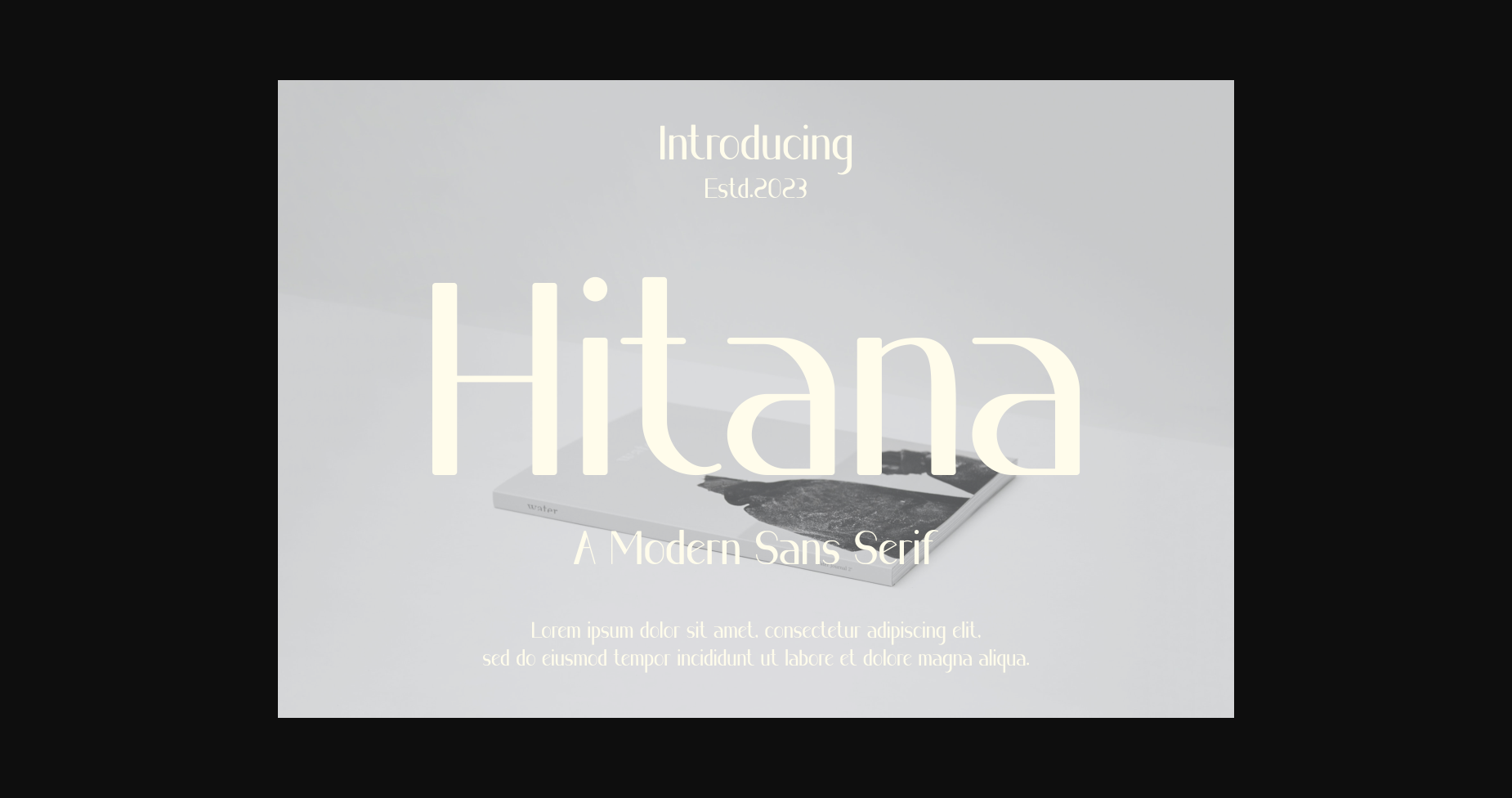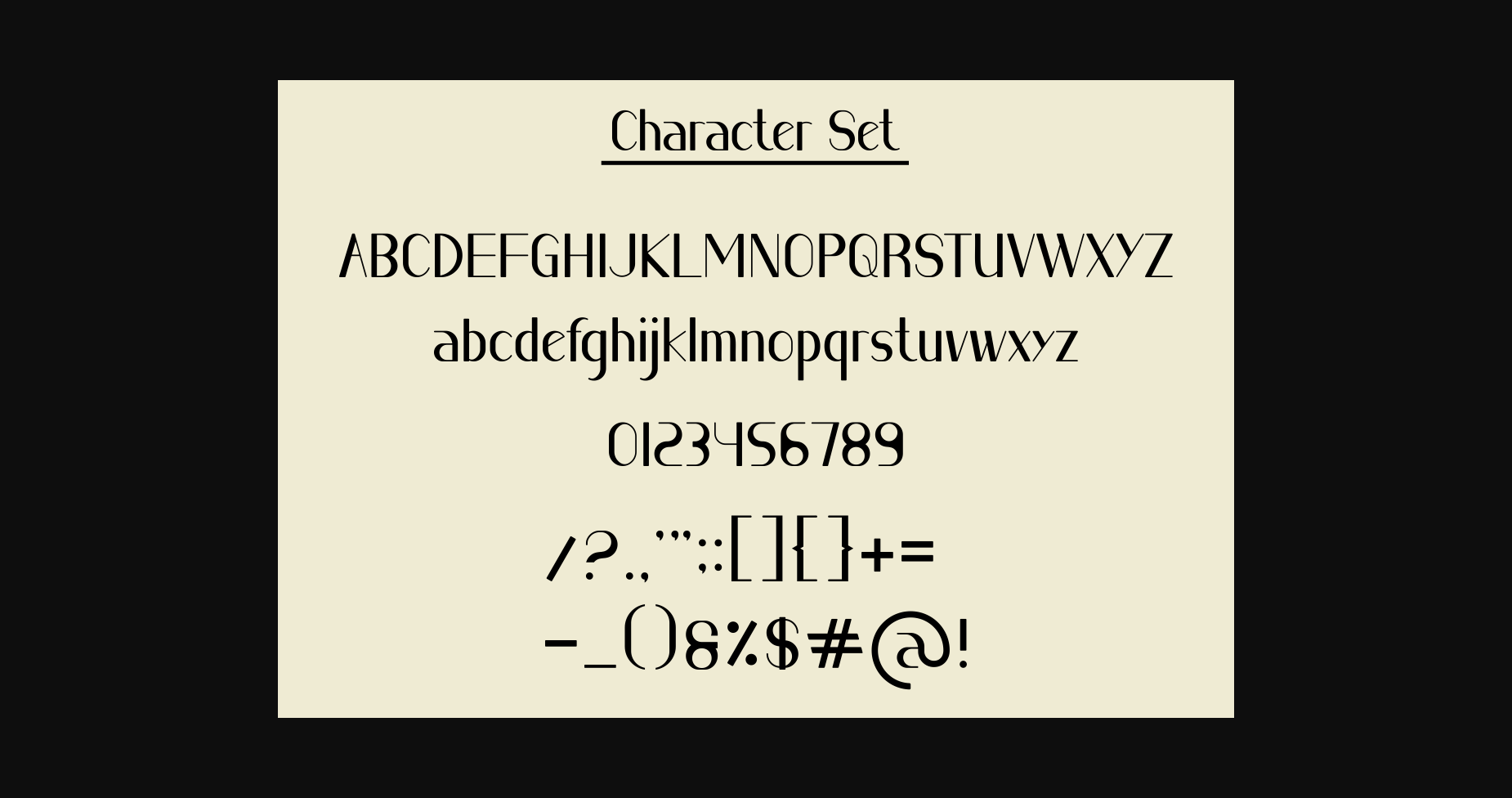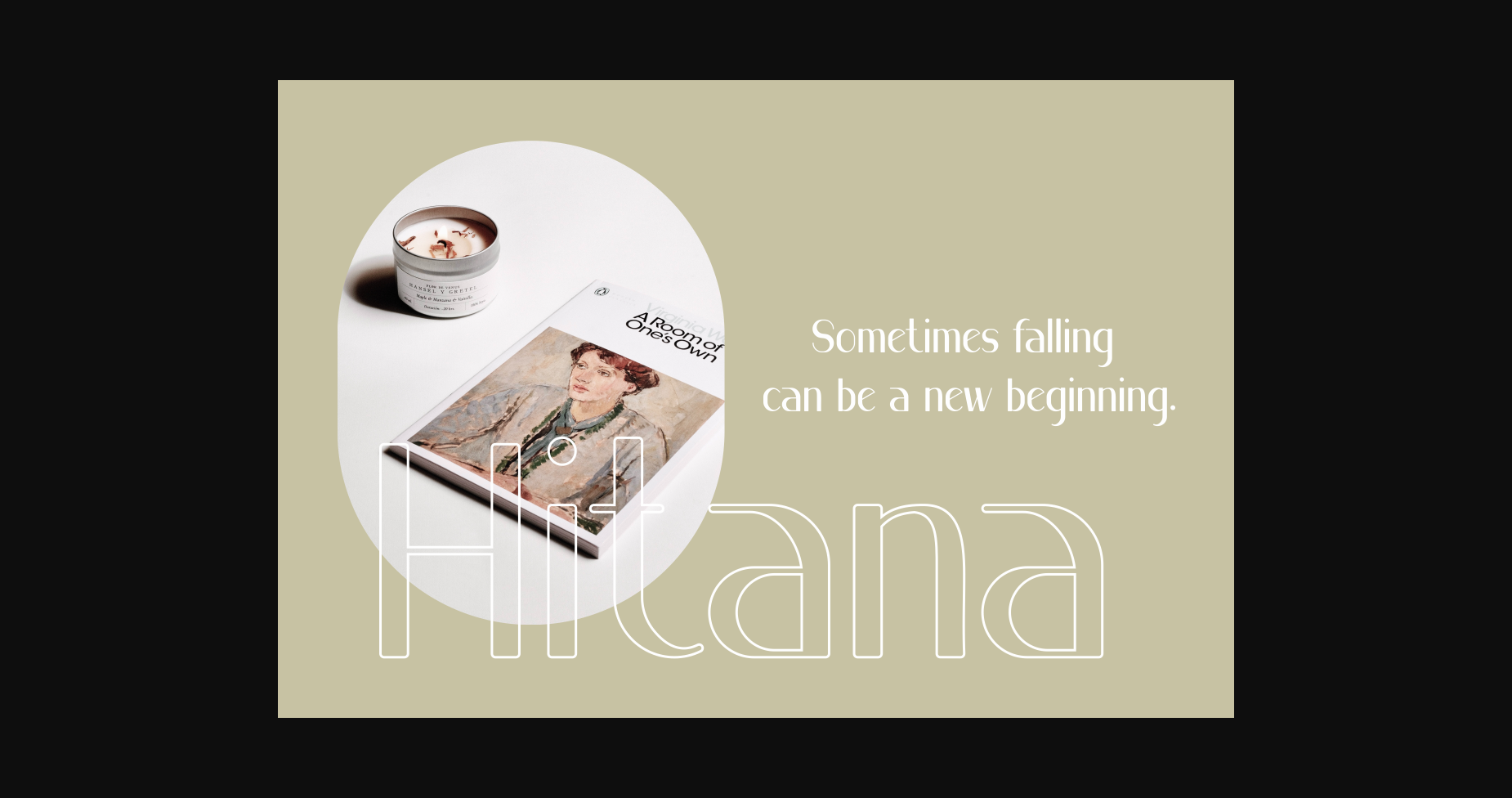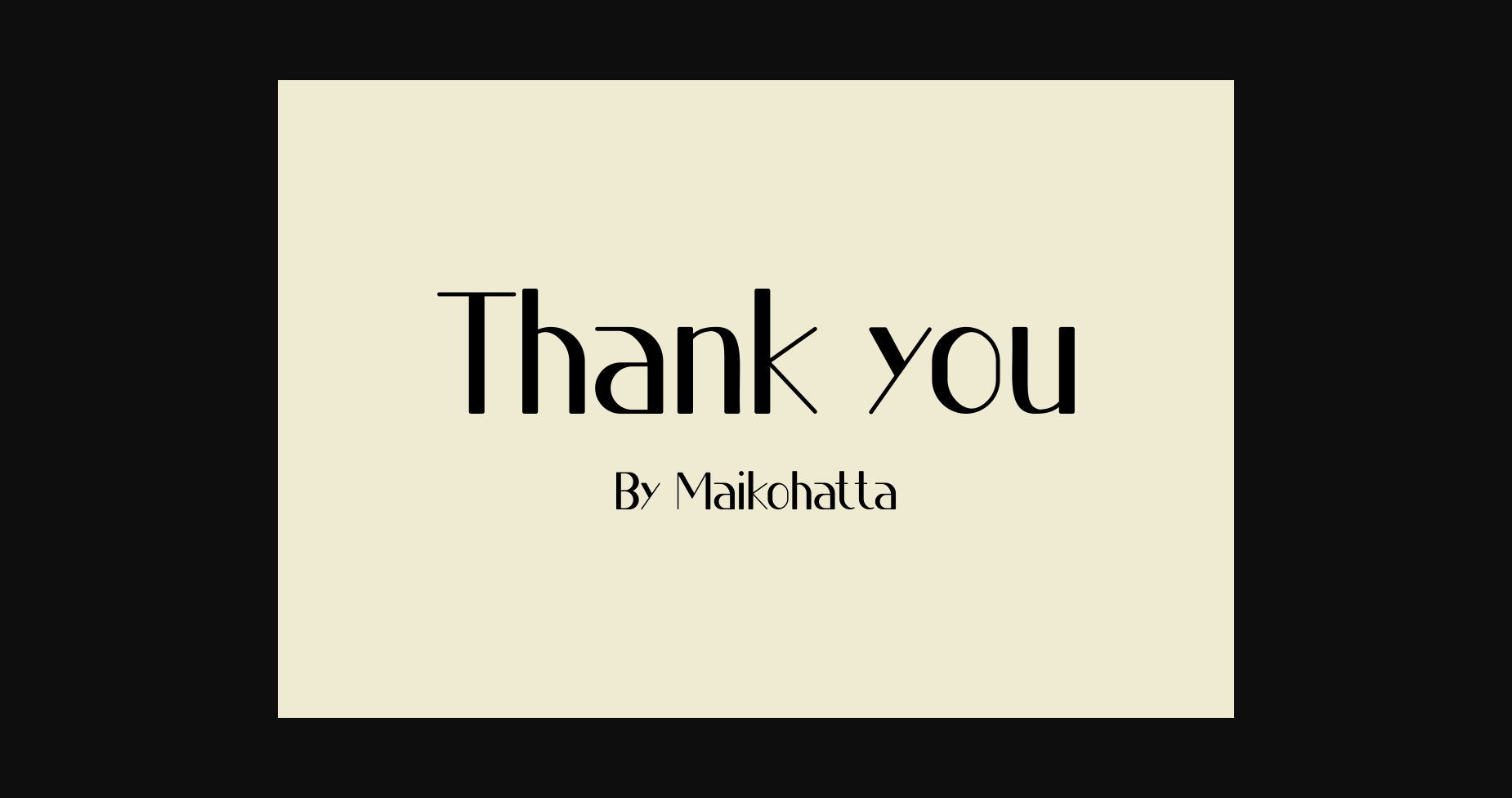
Hitana Font
About Hitana Font
Hitana Font is a modern Sans Serif font with a bold and authentic feel. This lovely font is suitable for logos, t-shirt printing, esports, websites, branding, and many more. Outstanding in a wide range of contexts.